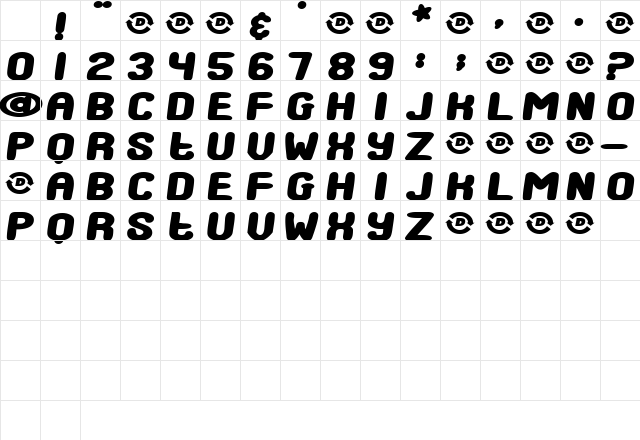
Chocolate Regular Free Font
Chocolate Regular
Design Context for Chocolate
Chocolate is a composed and adaptable typeface that performs quietly and consistently across a wide range of design contexts.